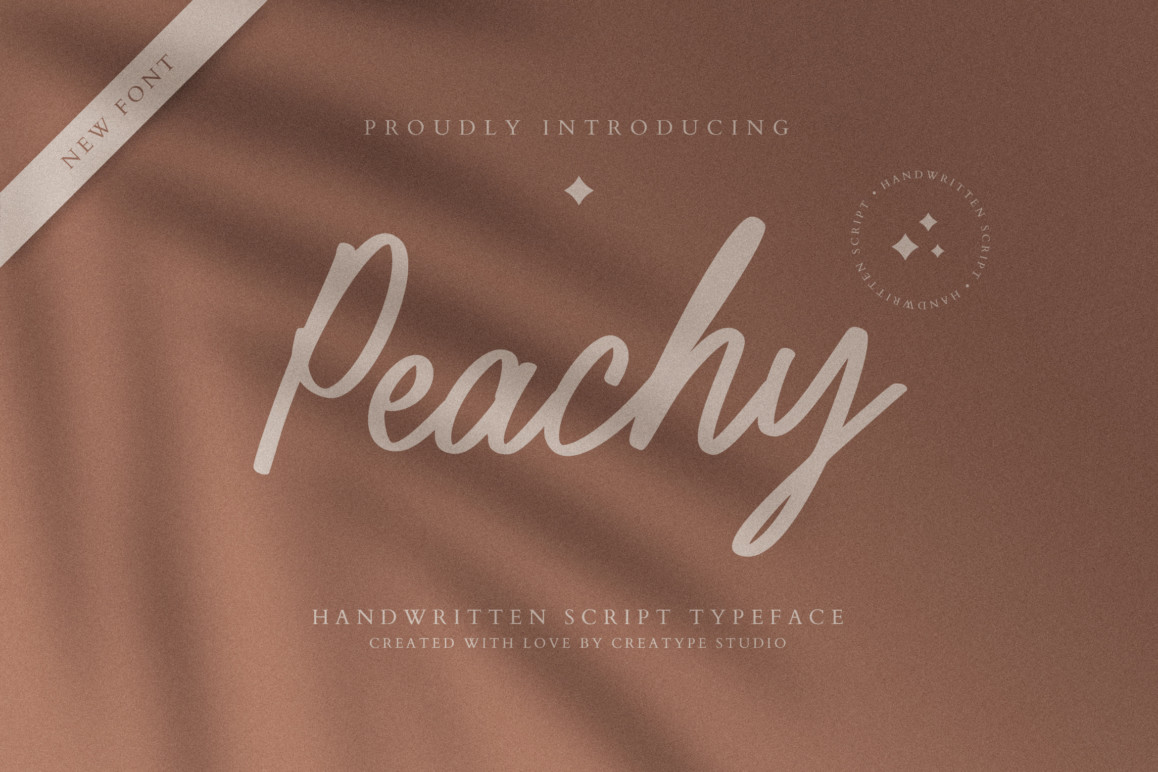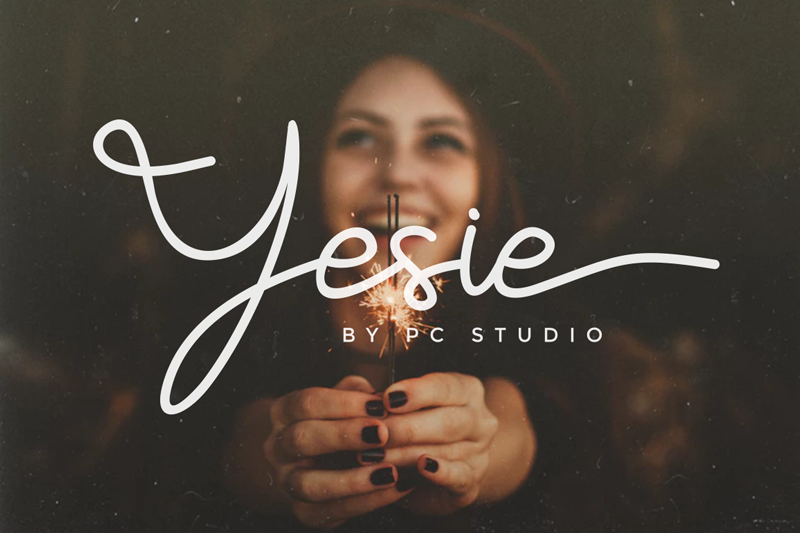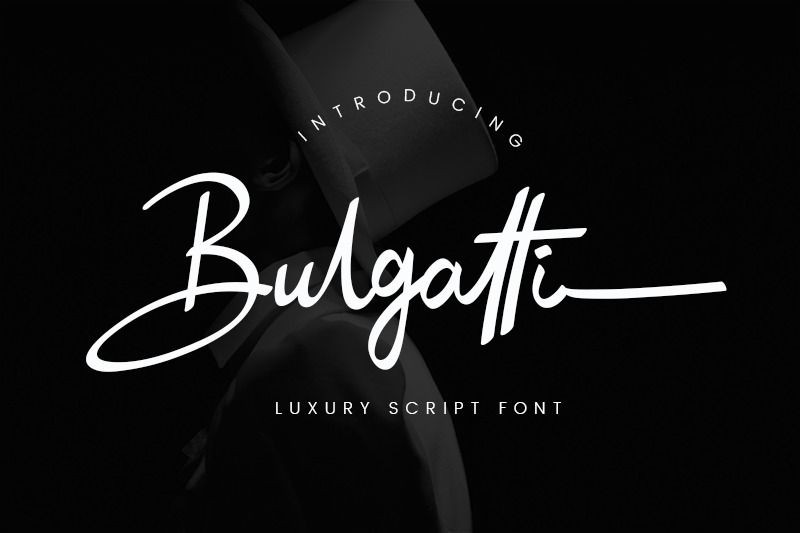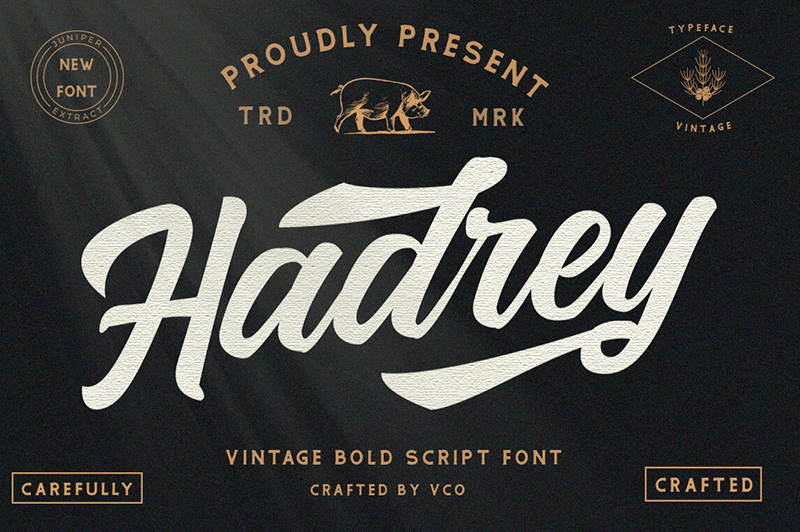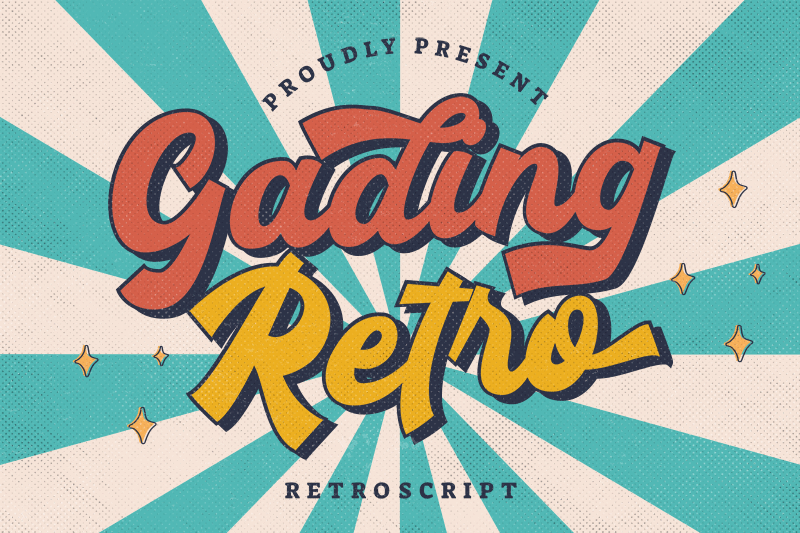
15 Dazzling Cursive Fonts for Logo Design to Evoke Awareness
If you want to tone your logo design projects up with romantic, glamorous, and classy moods, the cursive fonts are your choice! Let’s take a glance at our selection of cursive fonts for logo design that will embellish your projects.
What’s a Cursive Font?
Cursive fonts are typefaces that mimic the style of handwriting. The letterform consists of fluid strokes that make cursive lines and elegant loops. Cursive fonts feature detailed swashes, dramatic strokes, and stylized uppercase characters.
The typeface is suitable for designs that need an artistic and intimate feeling. Thus, you can use this font to enhance your logo design.
Doll Up Your Branding Using The 15 Best Cursive Fonts for Logo Design!
Design element, like fonts, for the logo should not only provide clear legibility but certainly needs to be remarkable. Therefore, consider the following font list for your current or next logo design project.
1. Peachy
Peachy
Peachy is a lively and natural handwriting font. The letterform has a unique shape, making the font look casual yet charming. This font has the characteristics that suit essential products, giving those products’ logo designs a more intimate and serene mood.
2. Gilliant
Gilliant
Gilliant is a handwritten script font that has consistent letter shapes and contrast. The font has elegant and stylish strokes and loops.
As one of the cursive fonts for logo design from Creatype Studio, this typeface features alternative glyphs and ligatures. Those included styles allow you to explore creativity and create a strikingly elegant logo design.
3. Bilanthy
Bilanthy
Bilanthy has a design with rounded curvaceous loops and lines. The font gives you a feeling of easy-going, peacefulness, and friendliness. You can use this font if you want something semi-formal with a hint of boldness for your logo design, so don’t hesitate to go with Bilanthy!
4. Agatha Christy
Agatha Christy
Beautiful yet mysterious is the right word to describe this font. Agatha Christy font gives a sense of femininity, mystery, and cleverness. The letterform has a thin weight that makes it more elegant, noble, and respectful. Additionally, the font features stylized swashes and ligatures to add more sense of beauty.
This font is one of the cursive fonts for logo for you who want sensibility in your design.
5. Tahu
Tahu
If you want your logo design be more playful and robust, then try Tahu! Tahu is a cursive font with bold weight and strong contrast that leaves a strong impression, yet it is still readable. It evokes a playful and friendly manner. Using this for your logo design for various products will hook customers.
6. Bulgatty
Bulgatty
Bulgatty is one of the best cursive fonts for logo that perfectly combine modernity and a classical vibe. The stokes make the font look modern and luxurious. Meanwhile, ligatures and swashes of the font reminisce to a classical or Middle Eastern vibe. If you want your logo to look magnificent, Bulgatty font is the answer.
7. Hadrey
Hadrey
Need an option with a retro and vintage mood? Add Hadrey to your list of fonts for the logo! The font clearly has a bold weight with unique ligatures and swashes that bring you back to the retro era and nostalgia.
8. Gading Retro
Gading Retro
Gading Retro is another retro script font style on the list!  The font has a plump and playful design. Not to mention, it brings back a vintage and nostalgic vibe. It makes a good element for the logo of apparel, barbershops, automotive, or sports brands.
9. Aesthetic Note
Aesthetic Note
A dynamic and beautiful handwriting font, Aesthetic Note font gives you a sense of romance and yearning. This font will be a perfect company and applicable for women’s product logo designs that need natural yet elegant dashes and curves.
10. Cherly Blossom
Cherly Blossom
Cherly Blossom is one of the beautiful cursive fonts for logo design from Creatype Studio. It has a stylized design and unique curvy swashes. The font combines the style of retro and modern views.
As a result, it looks modern and elegant. The swashes of the letters are clean, neat, and pleasing. The font gives the vibe of magical, adventurous, joyful, and playful,
11. Yesie
Yesie
This font has quirky curves and letterform style in its characters set. Yesie is a monoline cursive font with thin strokes and lines that shape an aesthetic style. This font also includes uppercase and lowercase letters, ligatures, and swashes, which provide good readability and legibility in logo design when combined properly.